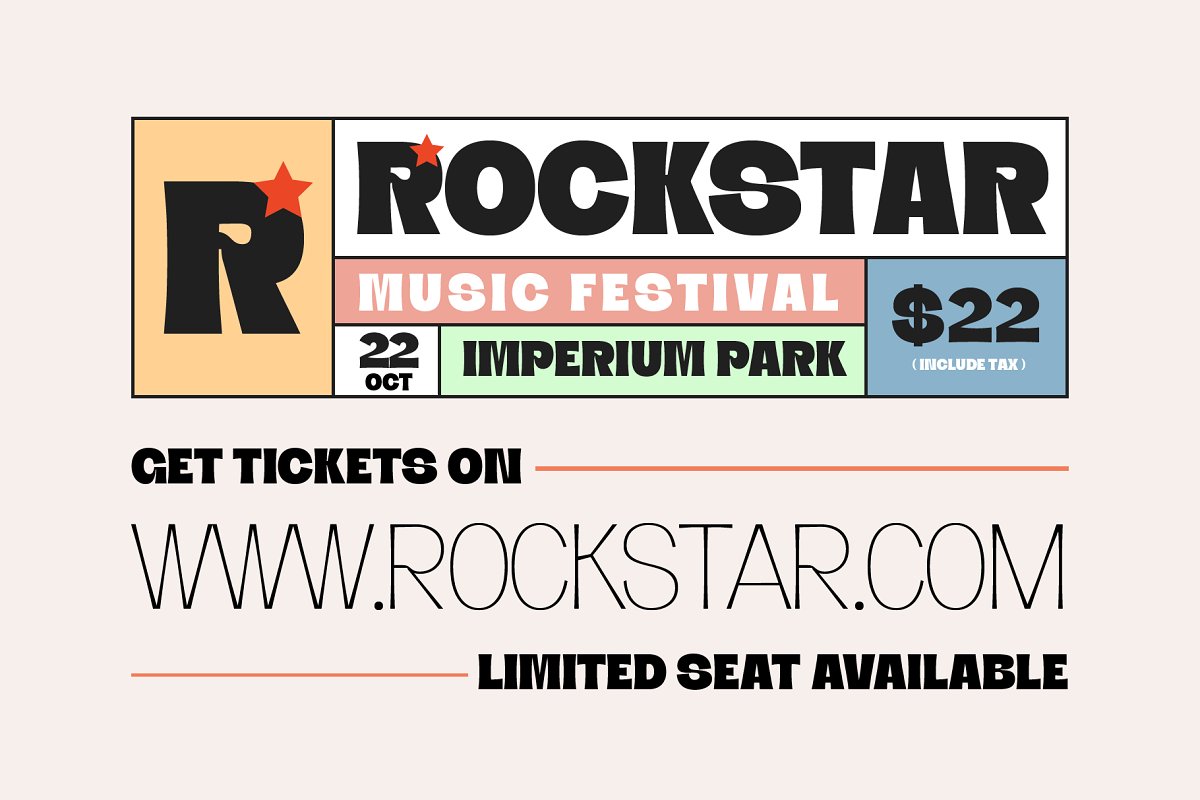
About the Regarn Font Family + Variable
Introducing Regarn Font Family + VariableWith 9 weight options to choose, Regarn is versatile enough for any type of project, Whether you’re a designer looking for a new font to add to your collection, or just need some basic text fonts on hand, Regarn has you covered, Looking for a font that is versatile, modern and stylish? Regarn is the perfect choice!